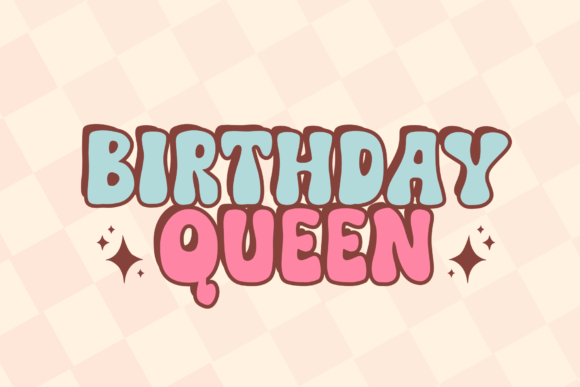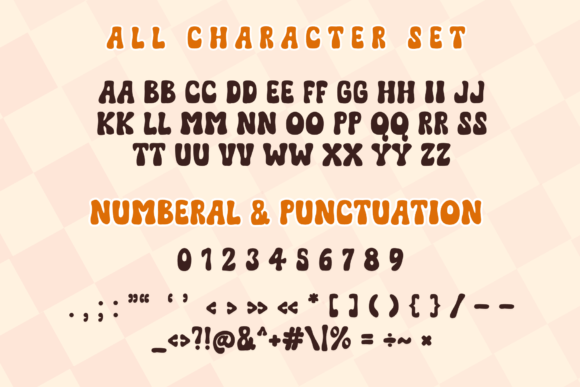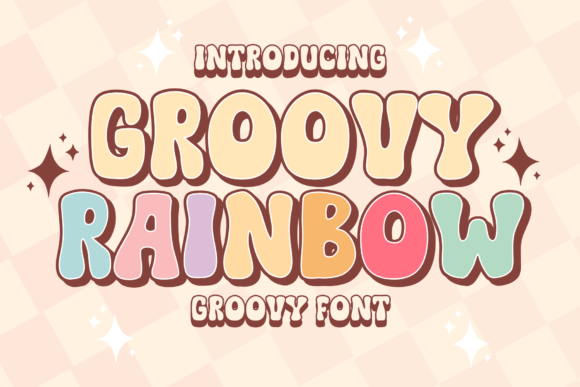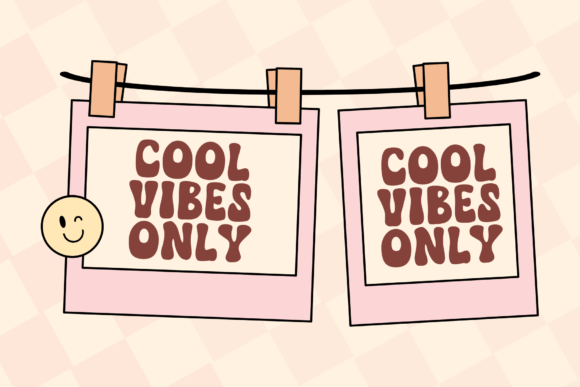
Groovy Rainbow Font
About the Groovy Rainbow Font
Let us introduce you to Groovy Rainbow Font, where timeless design meets modern craftsmanship. Groovy Rainbow is a stylish retro groovy font. Ideal for all your hippie-inspired designs, It embodies playfulness and authenticity and is the perfect choice for all your favorite projects, or even for blog posts, logos, branding, ads, invitations, greeting cards, planners, photo albums, decorations, and much more. Add it to any of your designs, and enjoy the results!
Groovy Rainbow’s playful, retro style shines brightest in headlines, short text blocks, logos, and branding for businesses with a similarly vibrant personality—think vintage clothing stores, music festivals, or artisanal food brands. It’s less suitable for body text or UI elements where readability over extended lengths is crucial.
Pairing it with a clean sans-serif like Helvetica Neue for body copy creates a balanced contrast, while a classic serif like Garamond adds a touch of sophistication for more formal applications. For a bolder aesthetic, consider a geometric sans-serif such as Futura.
The font’s core personality is undeniably playful and optimistic, evoking a sense of fun and nostalgia without being overly childish. This makes it a strong choice for projects requiring a lighthearted yet stylish feel.
Groovy Rainbow Font Usage Examples
Groovy Rainbow Font Example